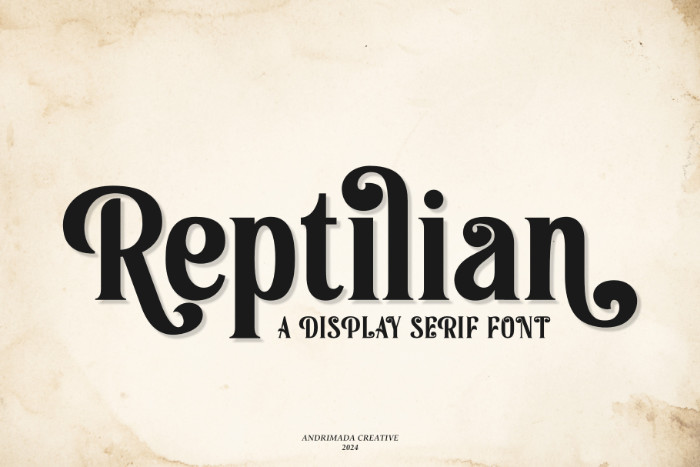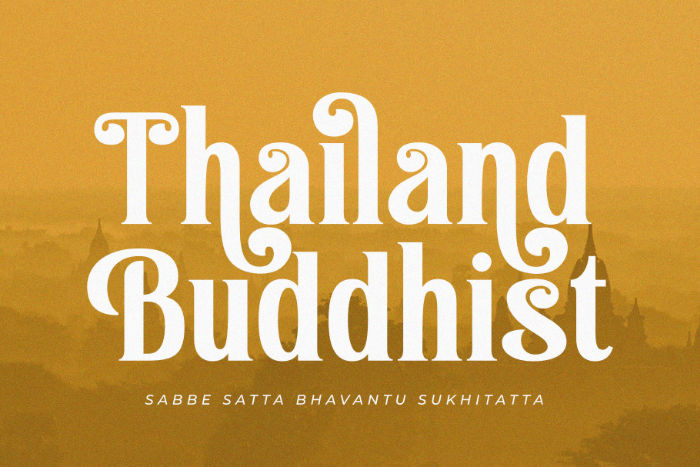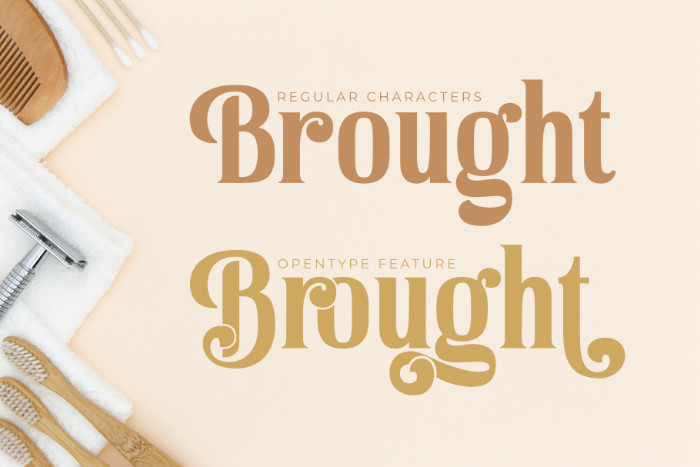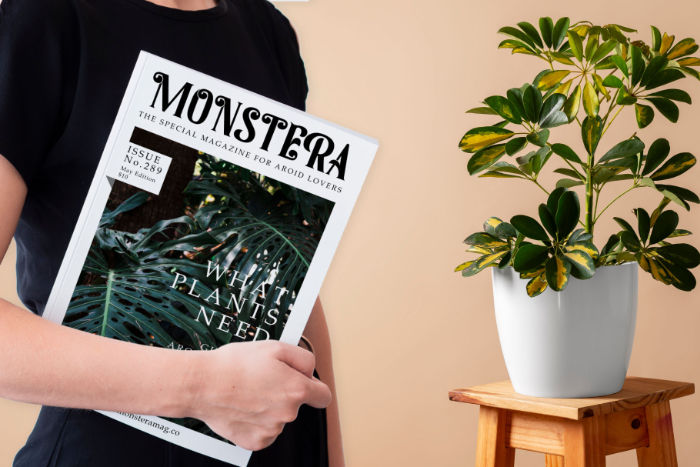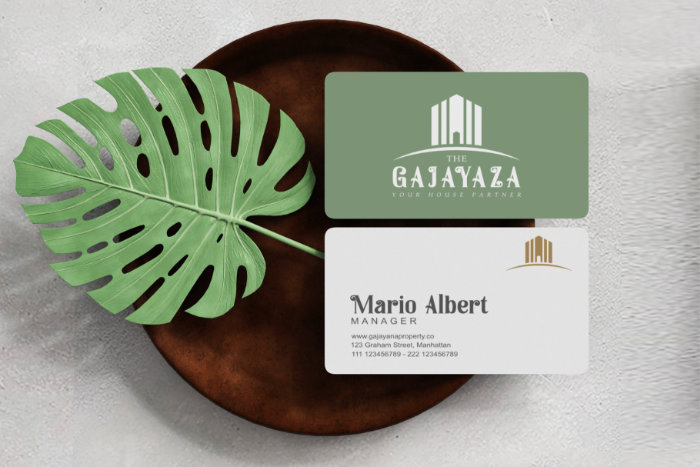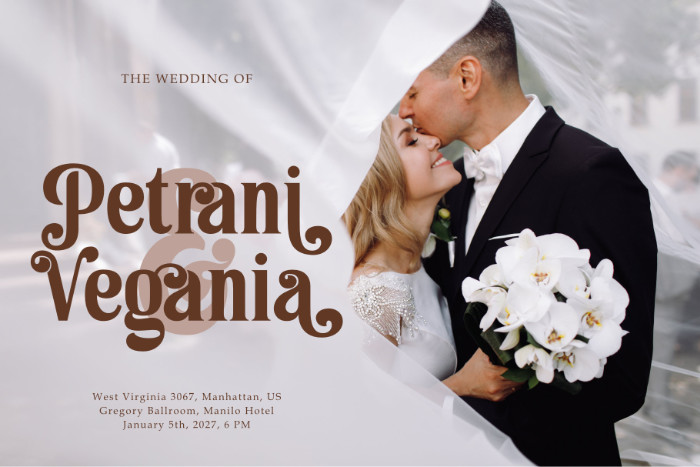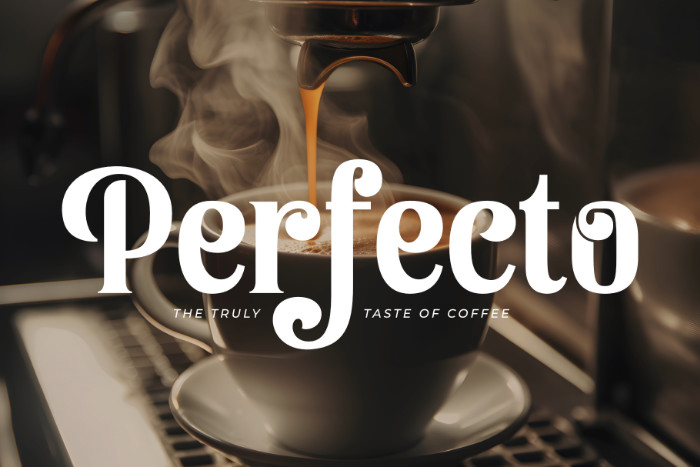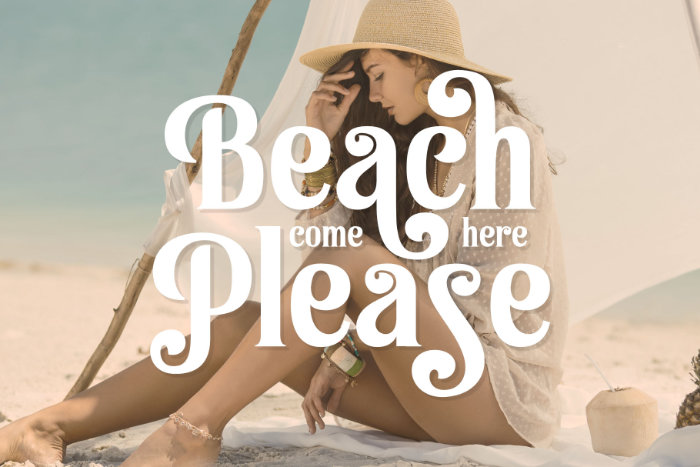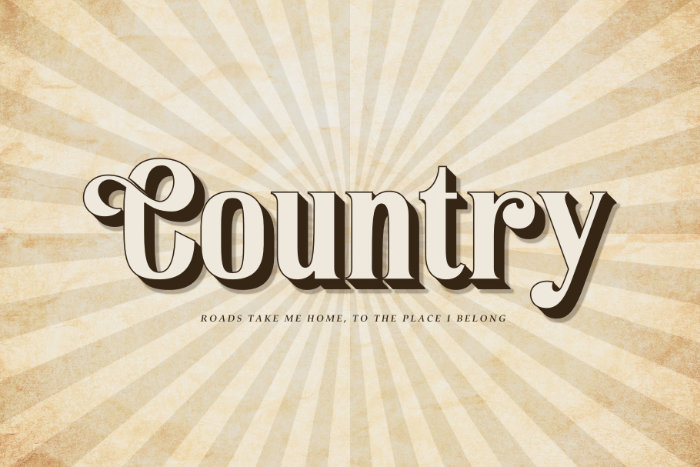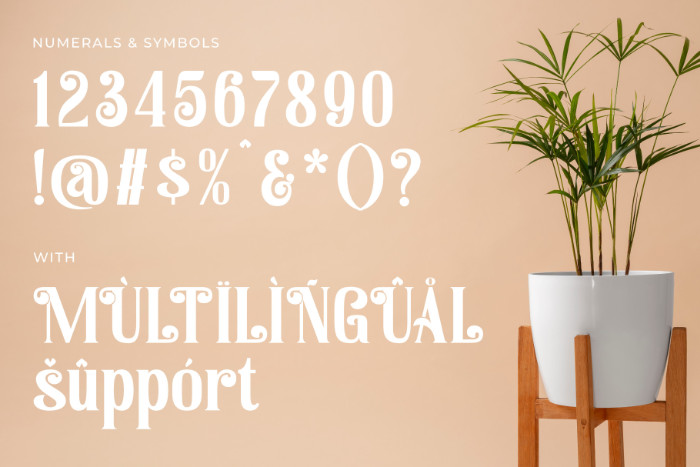
Reptilian is a stunning Display Classic Serif font designed to bring elegance and character to any creative project. With its refined letterforms and sophisticated design, this font embodies timeless beauty while offering a modern twist. Featuring a rich selection of alternates and ligatures, Reptilian provides designers with versatile options to create unique, expressive typography that stands out.
The font’s meticulously crafted details ensure high readability while maintaining an artistic flair. Whether used for branding, editorial layouts, packaging, or digital designs, Reptilian enhances visual aesthetics with its bold yet graceful presence. The well-balanced proportions and classic serifs make it a perfect choice for conveying professionalism, creativity, and luxury.
Reptilian’s variety of alternates and ligatures allow for effortless customization, enabling designers to craft dynamic and engaging compositions. Its adaptability makes it suitable for everything from sophisticated headlines to stylish logos. This font seamlessly blends tradition with innovation, making it an ideal choice for projects that require both vintage charm and contemporary elegance.
With its remarkable versatility, Reptilian ensures that any design achieves a distinctive, refined look. Whether for print or digital use, this font elevates typography, leaving a lasting impression on audiences.